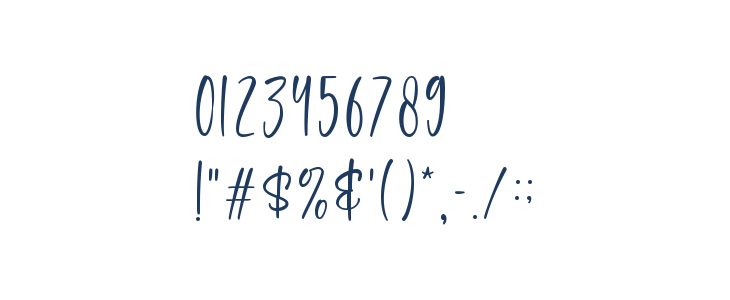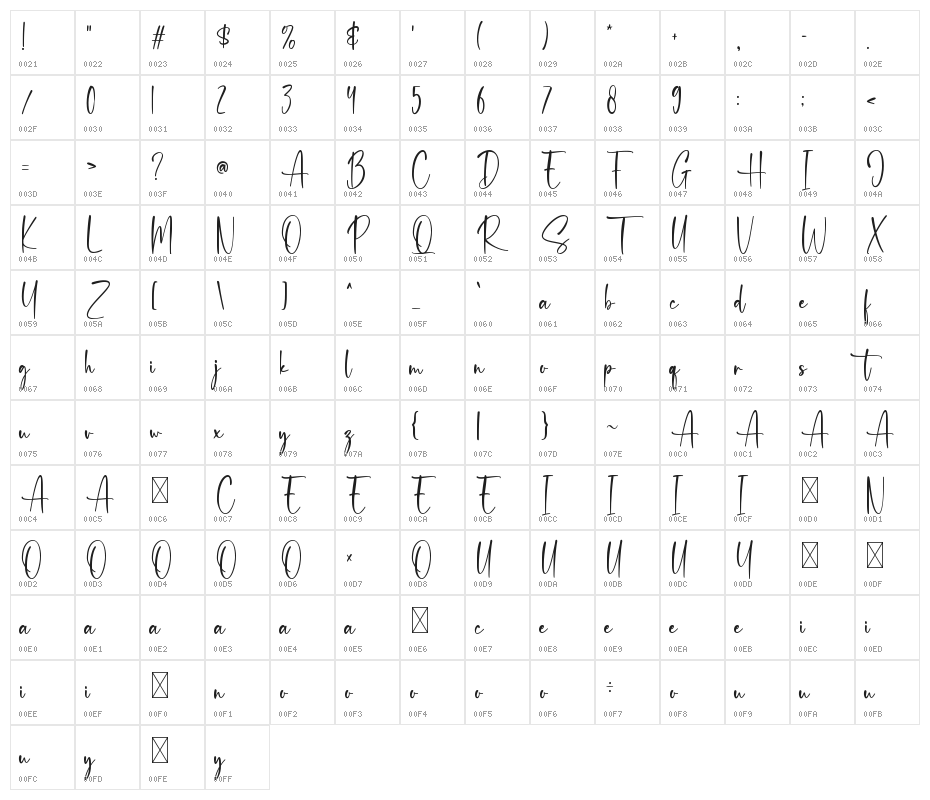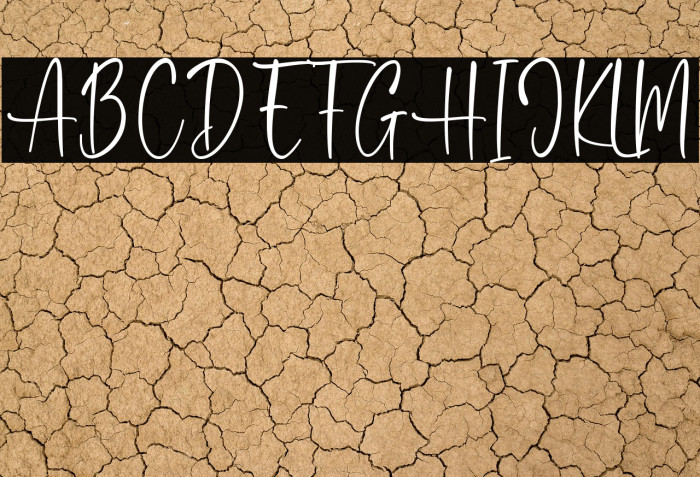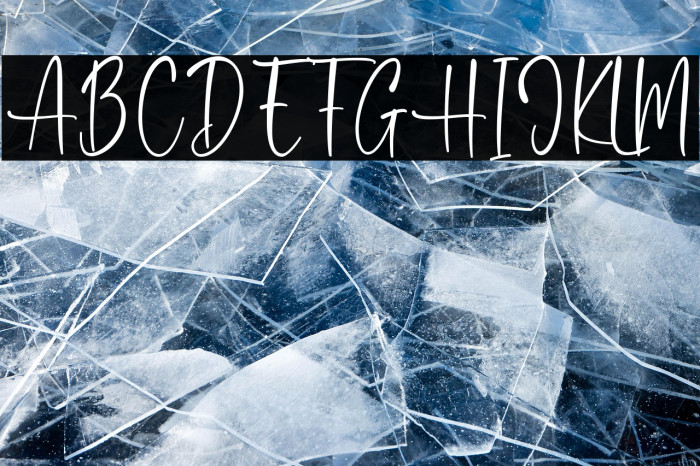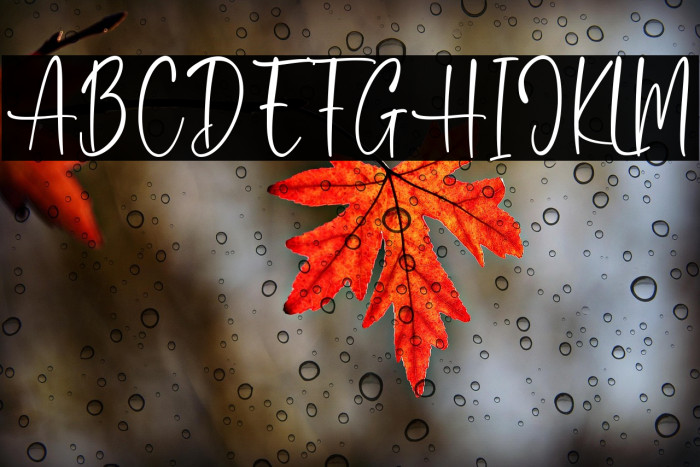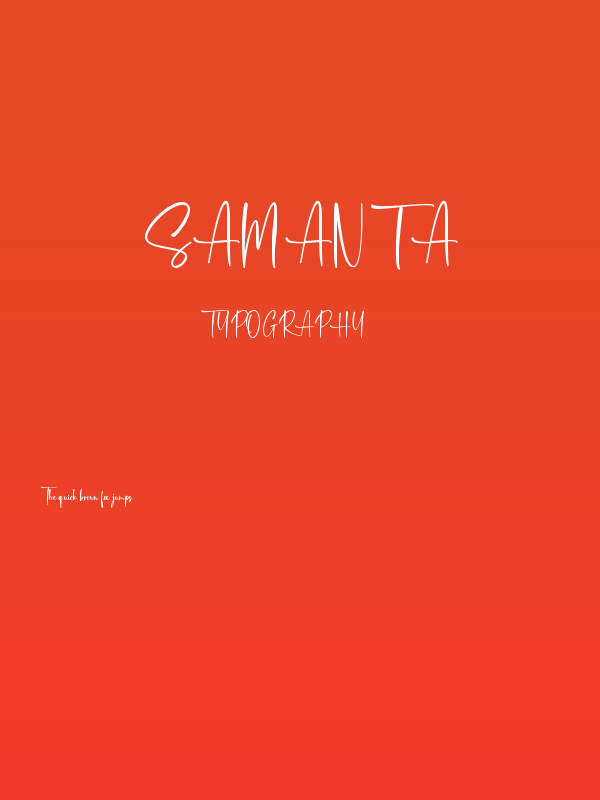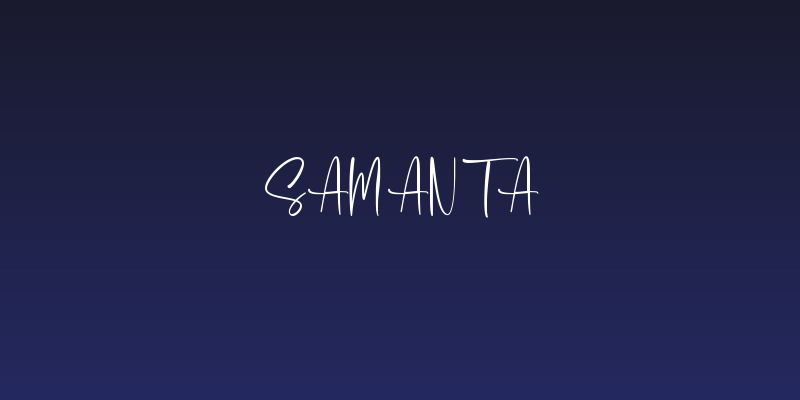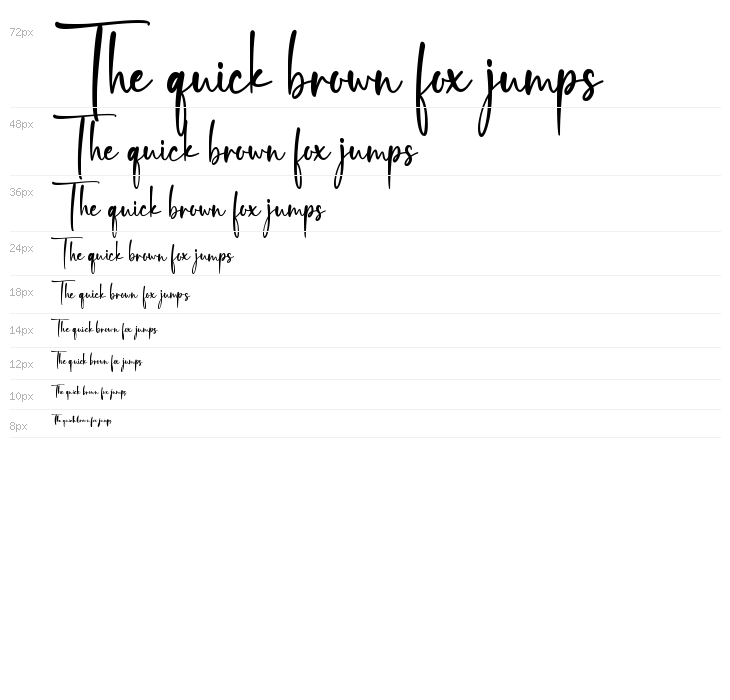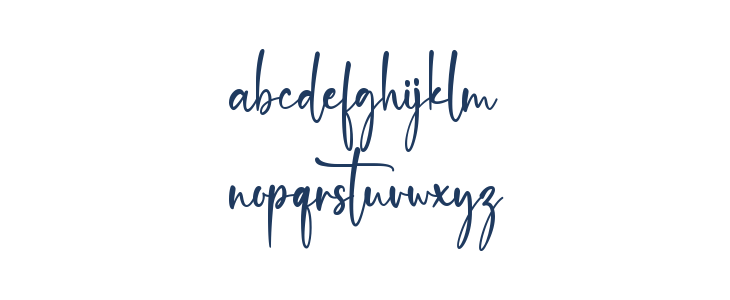
Samanta Font
Samanta Description
This font features a playful and casual handwritten style, characterized by its flowing and slightly irregular letterforms. The uppercase letters are tall and slender, with a whimsical flair that adds a touch of personality. The lowercase letters maintain a consistent style, with smooth curves and a natural, fluid motion. Numbers are clear and easy to read, matching the overall aesthetic. Special characters are included, maintaining the same playful and informal style. The font's overall appearance is friendly and approachable, making it suitable for a variety of creative projects.
| Proposed Projects | Ideal for greeting cards, invitations, personal branding, and social media graphics. |